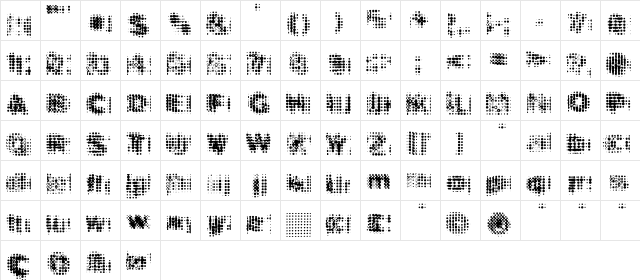
Cyber Static
Design Context for Cyber Typeface
Cyber channels digital-age aesthetics through its sharp, structured letterforms — ideal for brands that want to signal innovation.